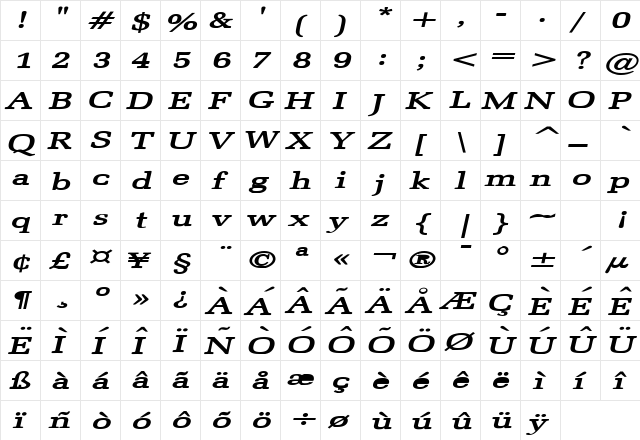
Bid Roman Extended Bold Italic
Design Context for Bid Roman Extended Typeface
Bid Roman Extended offers clean, dependable letterforms without strong stylistic allegiance, making it a practical choice for designers who need flexibility. Its italic angle brings a sense of urgency and motion to the letterforms. The heavy weight commands attention and anchors typographic hierarchies.
Pro Tip: Use Bid Roman Extended for emphasis, pull quotes, and subheadings where its slanted energy can add rhythm to the layout.